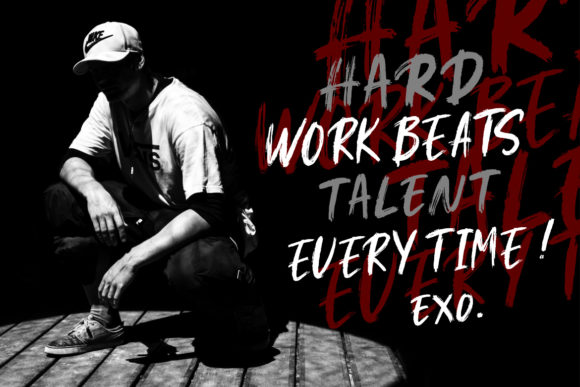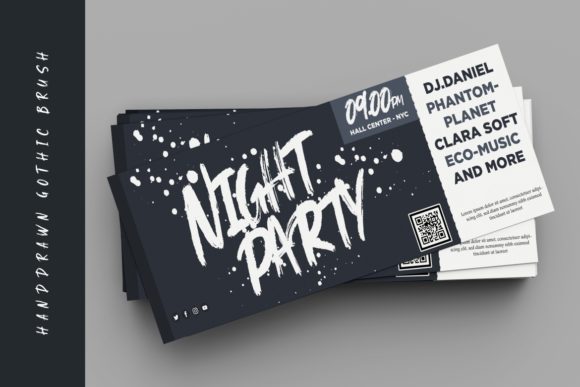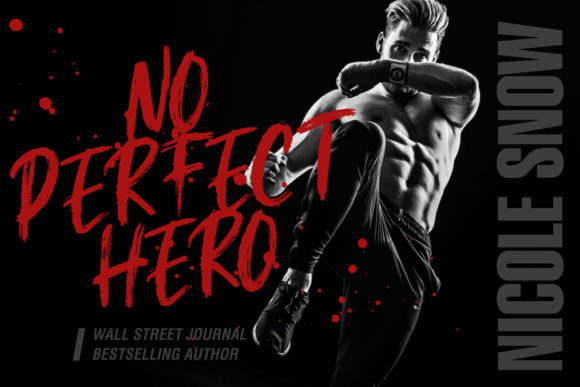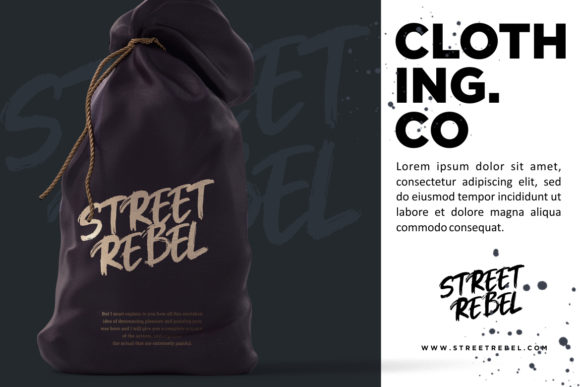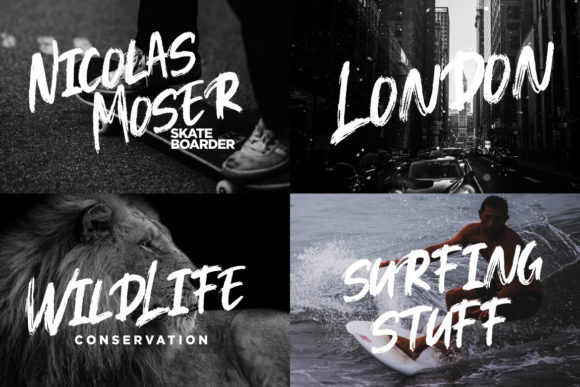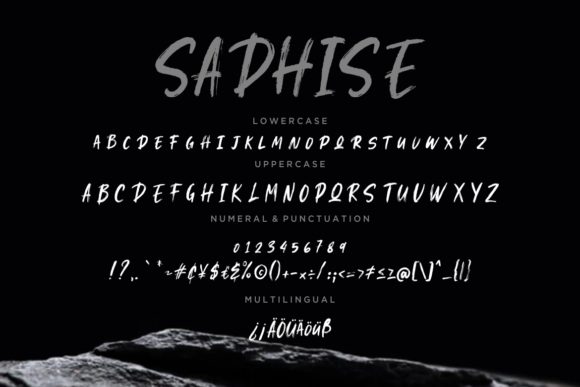
Sadhise Font – Free Download
Introduction to Sadhise Font
Sadhise is a gothic brush font.
It will add a special unique touch to any crafting project .
Sadhise Font offers exceptional quality and versatility, making it a valuable addition to your design toolkit. Whether you’re creating for personal projects or commercial use, Sadhise Font delivers professional results.